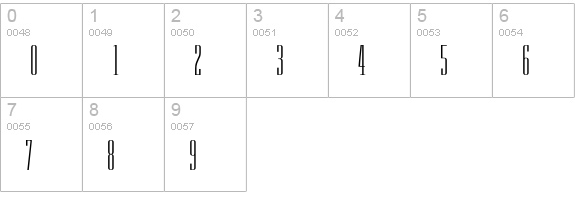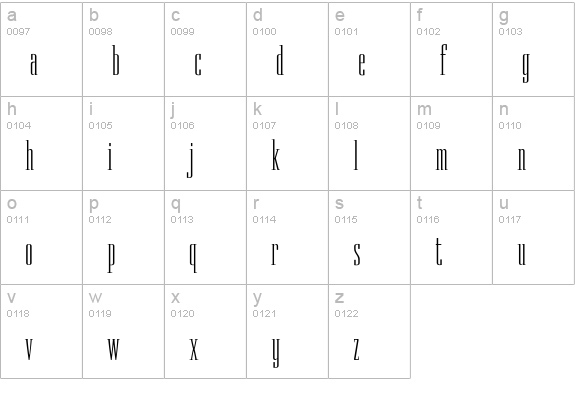
Chevron STF Font Details
Chevron STF is a modern and stylish font that exudes sophistication and elegance. With its clean lines and sleek design, this font is perfect for creating sleek and professional designs. The geometric shapes and sharp angles give Chevron STF a contemporary feel that is sure to make your projects stand out. The best part? Chevron STF is available for free download at FontsMarket.com. Whether you're working on branding, web design, or any other creative project, this font is a versatile choice that will add a touch of class to your work. Don't miss out on the opportunity to elevate your designs with Chevron STF - download it today and see the difference it can make!